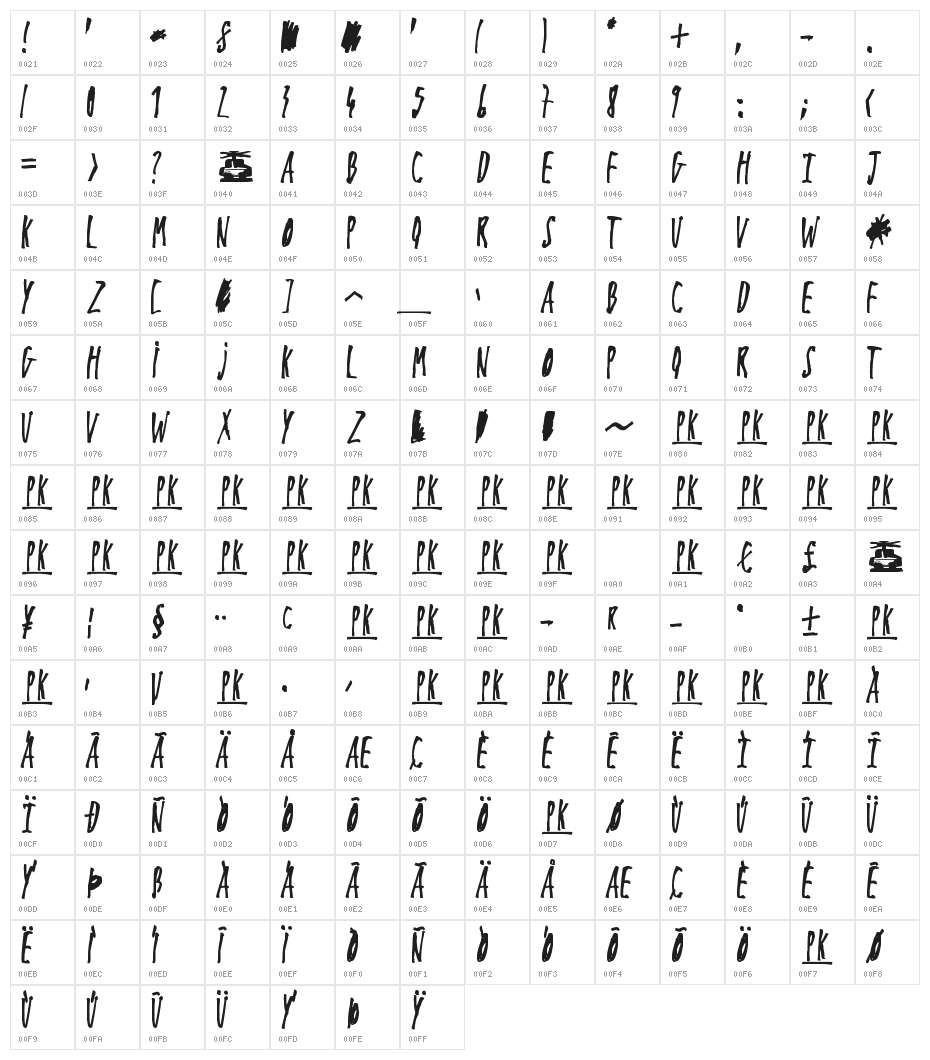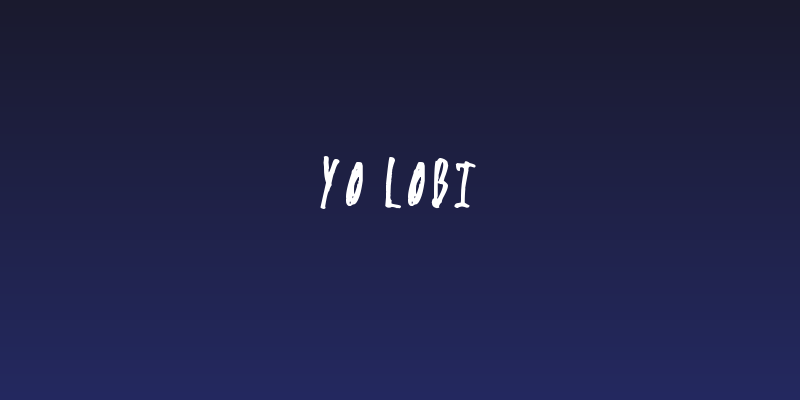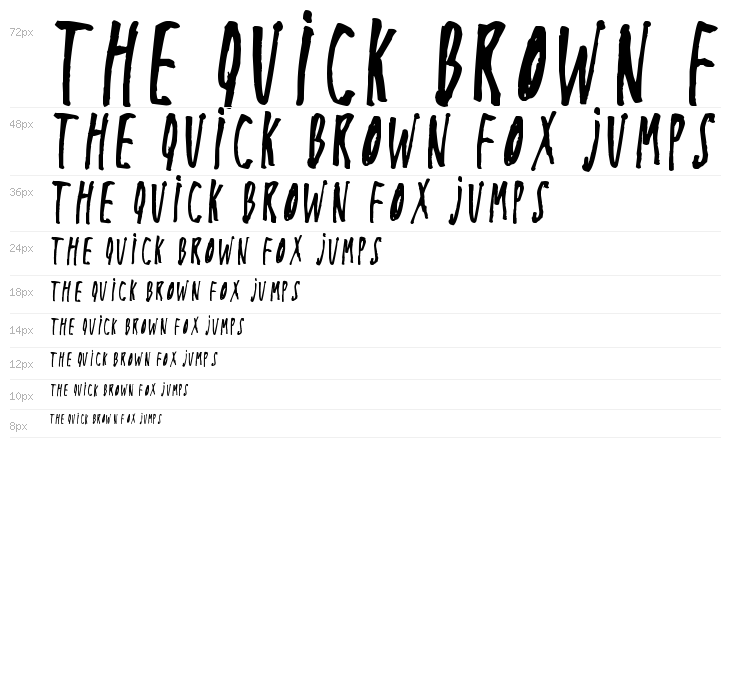
Yo Lobi Font
Yo Lobi Description
This font features a bold, handwritten style with a playful and energetic appearance. The characters are slightly irregular, giving it a casual and informal feel. The strokes are thick and uneven, adding to the dynamic and expressive nature of the font. It includes both uppercase and lowercase letters, numbers, and a variety of special characters. The overall look is reminiscent of brush lettering, making it suitable for projects that require a personal touch or artistic flair.
| Use Case | Logos, Headlines, Posters |
| Proposed Projects | Ideal for greeting cards, posters, social media graphics, and creative branding projects. |